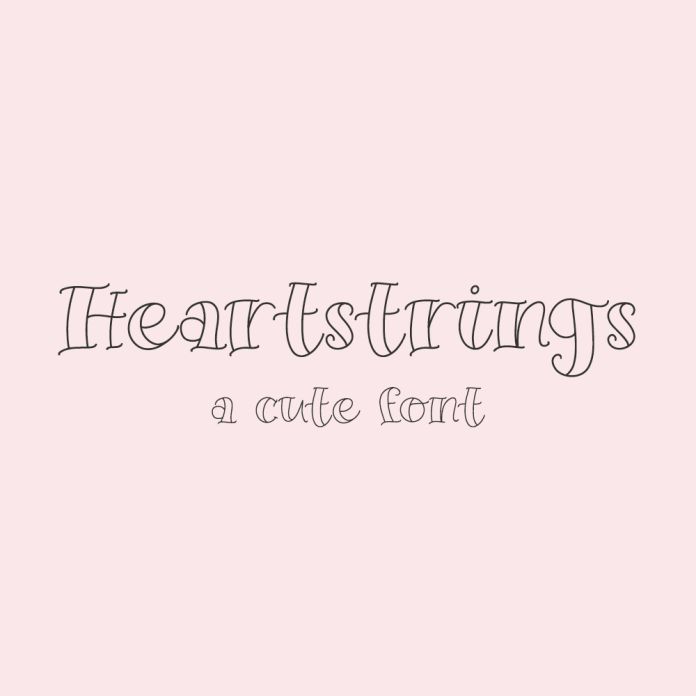
Heartstrings is a cute hand drawn font. It would be the perfect fit for anything Valentine’s Day or love related, and is also great for playful crafting projects, eye-catching marketing materials, and more.